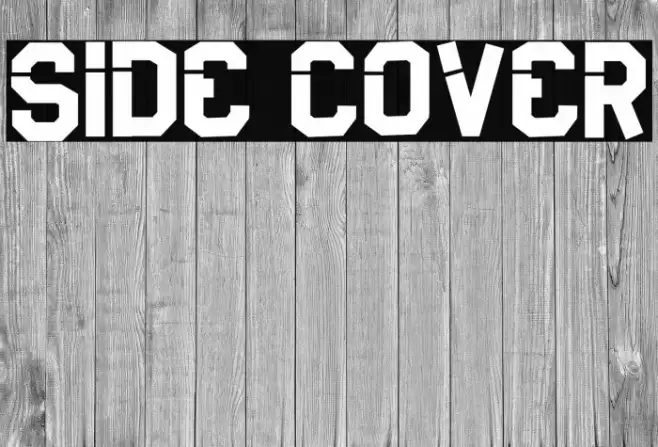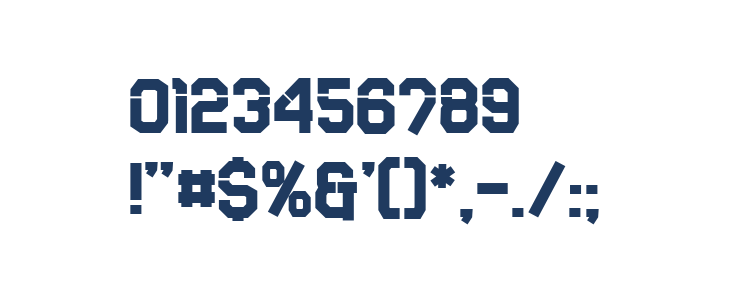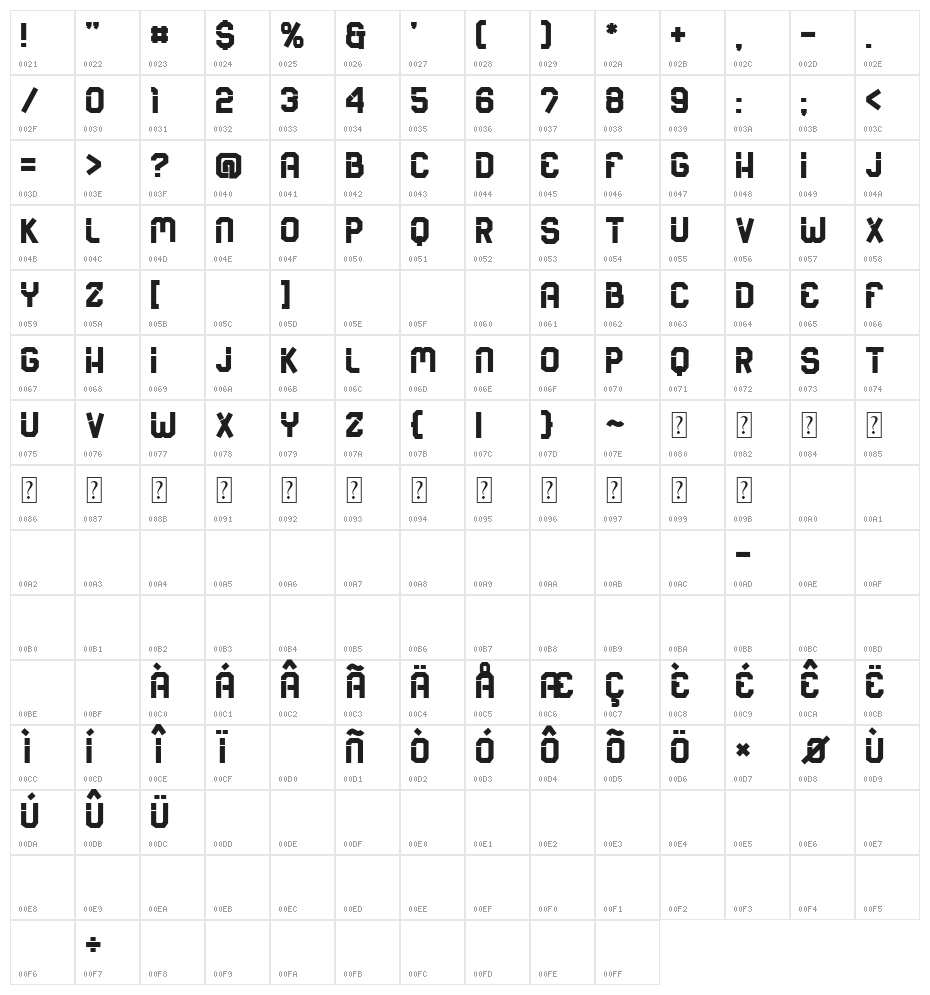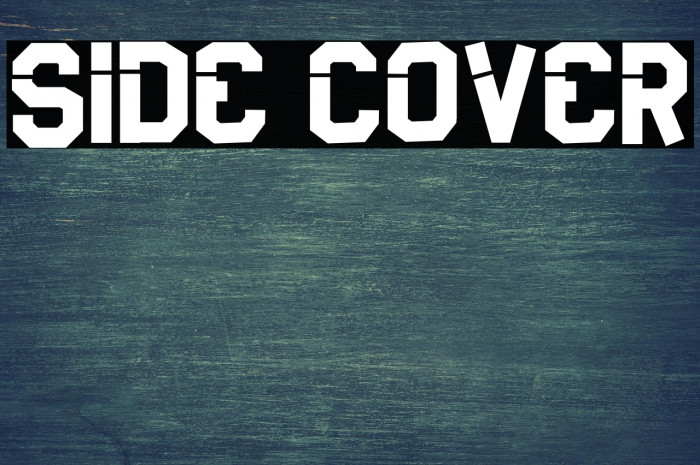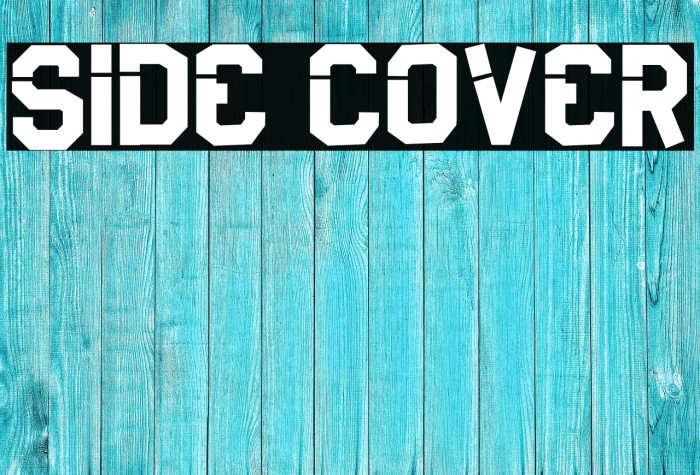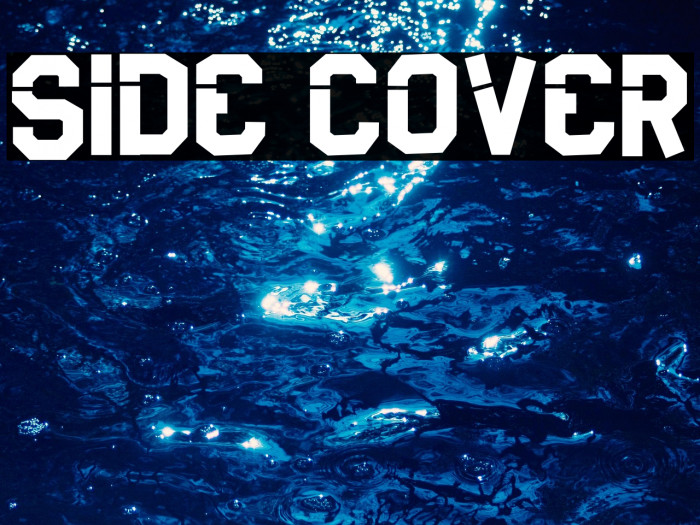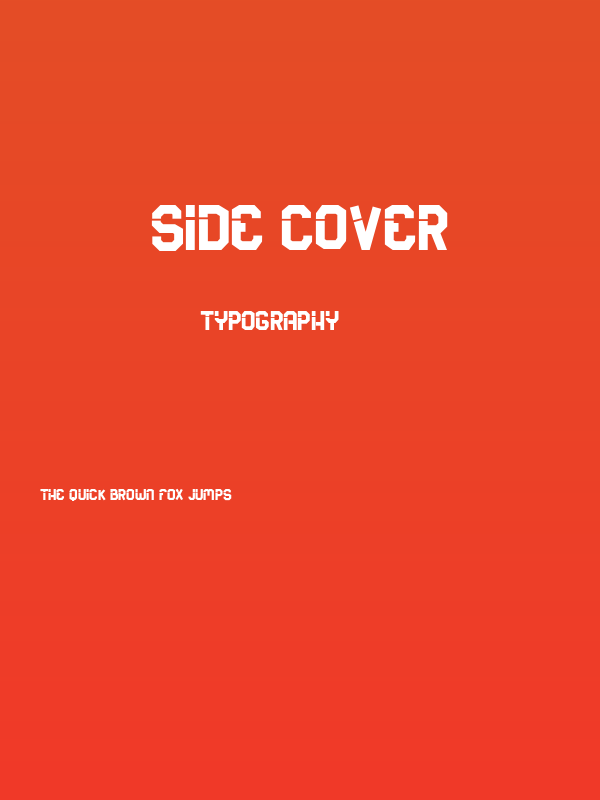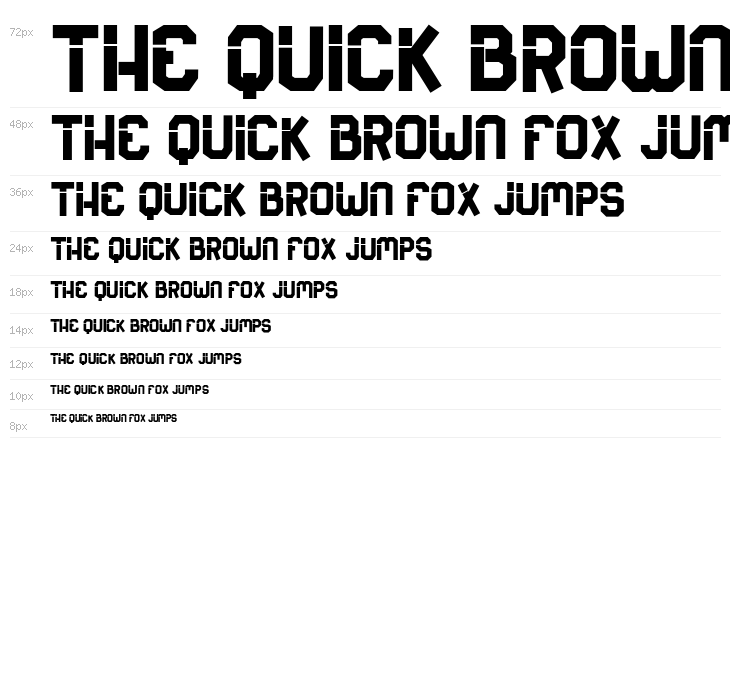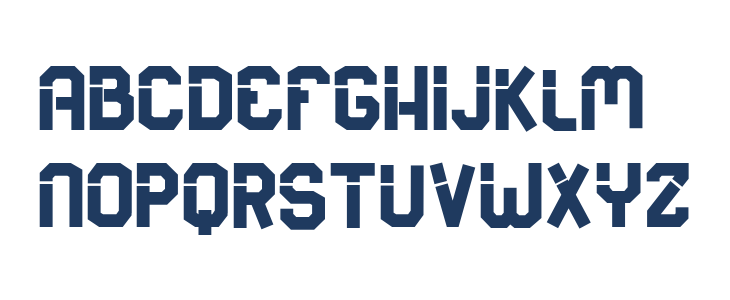
Side Cover Font
Side Cover Description
This font features a bold, geometric design with a distinctly modern and industrial feel. The characters are constructed with sharp angles and straight lines, creating a sense of strength and stability. The uppercase letters are particularly striking, with a blocky appearance that commands attention. The lowercase letters maintain the same geometric style, ensuring consistency throughout. Numbers and special characters are equally bold, making them ideal for impactful displays. The overall design is reminiscent of stencil or military fonts, lending itself well to projects that require a strong, authoritative presence.
A bold, geometric font with a modern, industrial style from Regular fonts.